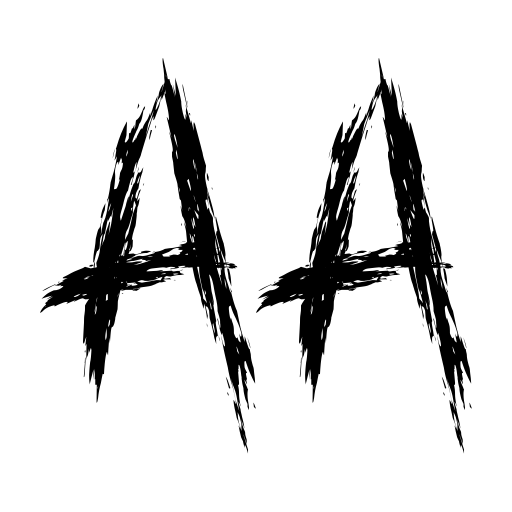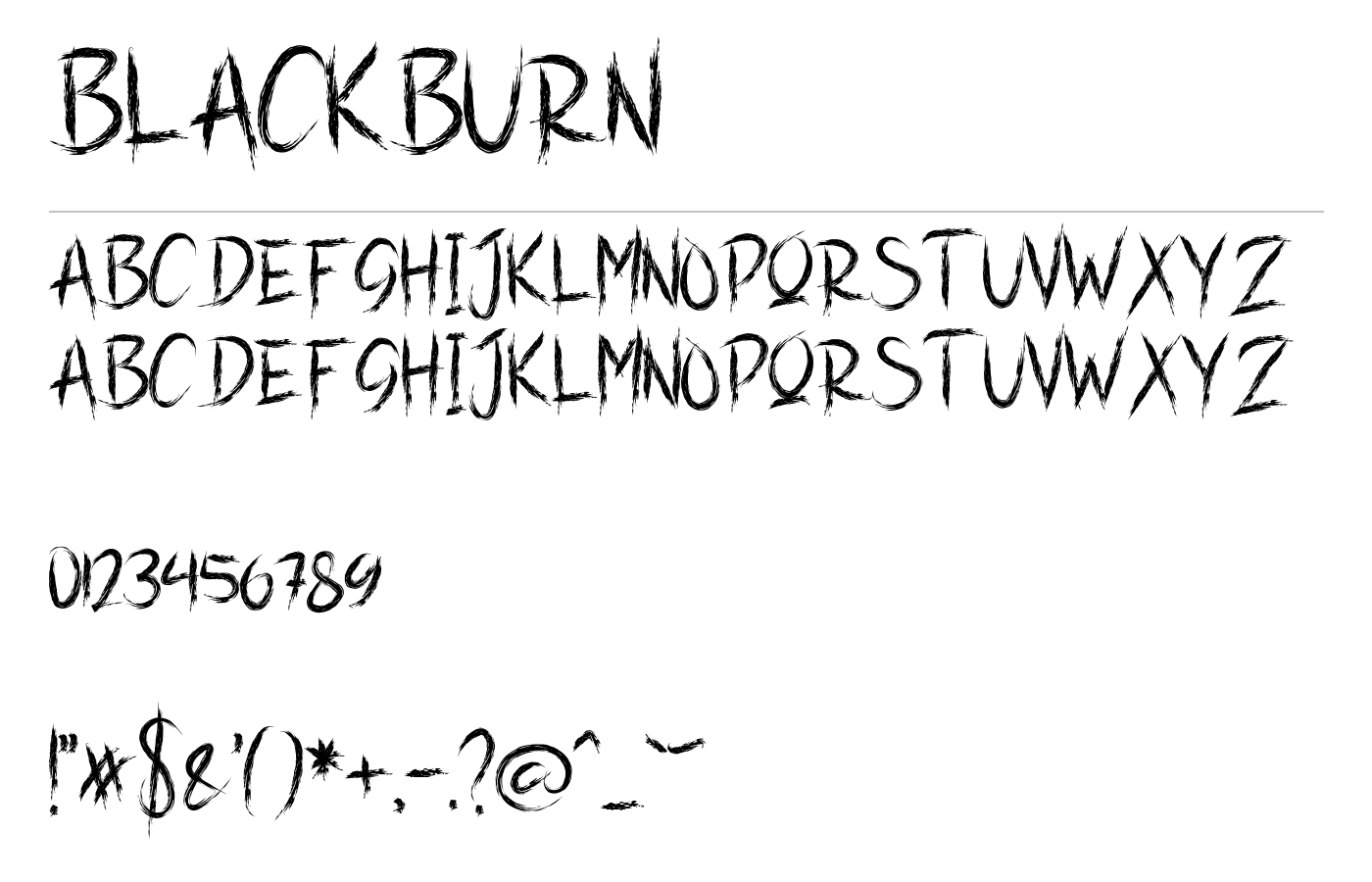
BLACKBURN is a distinctive sans serif font with a jagged, hand-drawn look that gives it a raw, edgy personality. Its thin, irregular strokes and rough texture create a feeling of intensity and energy, making it perfect for designs that want to convey a sense of boldness or rebellion. This font works well for posters, logos, and creative projects where a dramatic, eye-catching style is needed.
BLACKBURN Font
About BLACKBURN Font